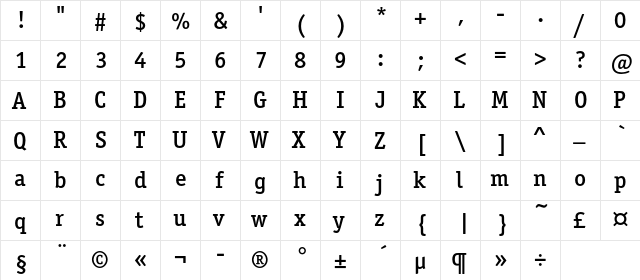
OfficinaSerifMediumC Regular Font Preview
OfficinaSerifMediumC Regular
Design Context for OfficinaSerifMediumC Typeface
OfficinaSerifMediumC brings classic typographic sensibility to the table — its serifs and measured letterforms reflect centuries of print heritage.
Pro Tip: Set OfficinaSerifMediumC with slightly loose tracking in headlines to let each letterform's detail read clearly at display sizes.